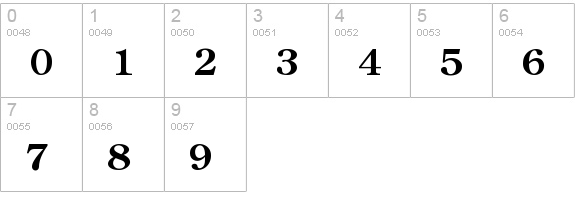
Century Retrospective SSi Semi Bold Font Details
Century Retrospective SSi Semi Bold is a strong, high-contrast variant in the Century typeface family \xE2\x80\x94 well suited to headlines, attention-grabbing titles, and strong calls-to-action.
Century Retrospective SSi Semi Bold is a modern and stylish font that exudes elegance and sophistication. With its clean lines and bold strokes, this font is perfect for making a statement in any design project. Whether you are creating a logo, poster, or website, Century Retrospective SSi Semi Bold will add a touch of class and professionalism. The best part is that this font is available for free download at FontsMarket.com. You can easily access this versatile typeface and use it in your projects without any hassle. Don't miss out on the opportunity to enhance your designs with the timeless beauty of Century Retrospective SSi Semi Bold. Download it now and take your creations to the next level.